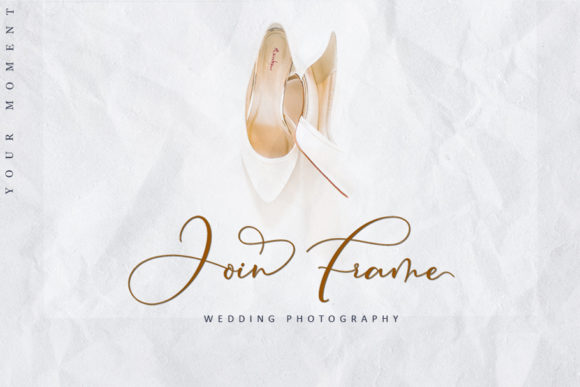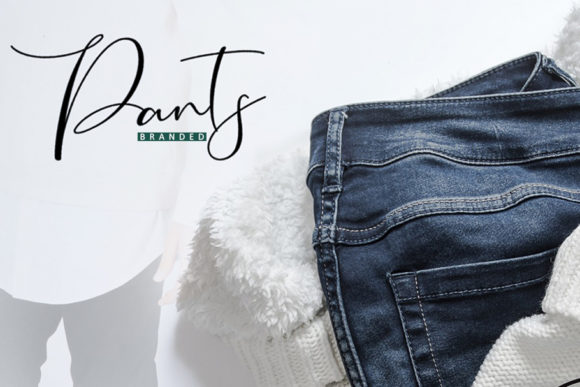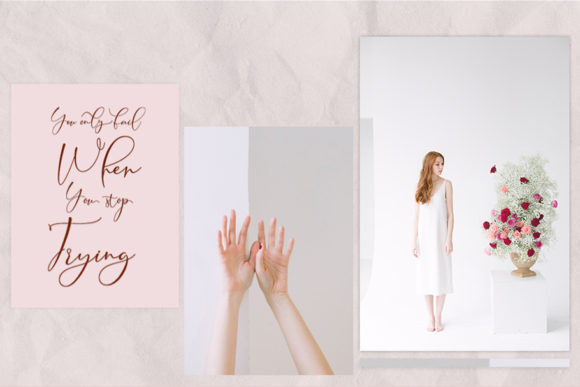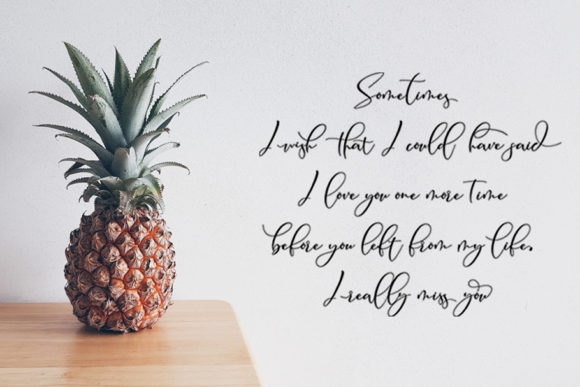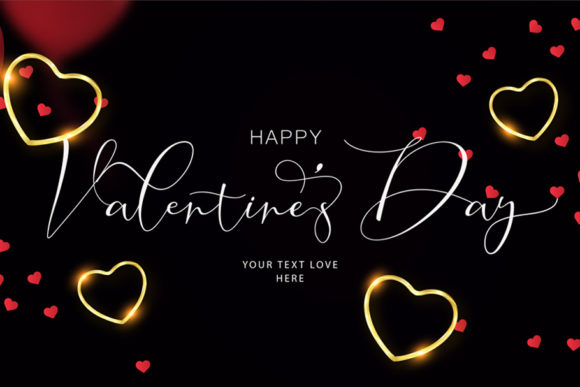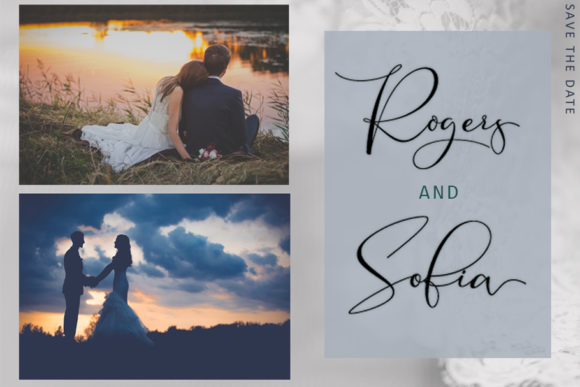
Discover the Perfect Script for Your Next Design Project
As designers, we’ve all been there – staring at a blank canvas, trying to find the perfect font to bring our vision to life. It’s that moment of excitement when everything clicks, and the design starts to take shape. For those who crave a touch of elegance and whimsy, we’re thrilled to introduce you to the stunning Camelia Stark Font.
This gorgeously light and fun script is designed to elevate any design project, making it a valuable addition to any designer’s toolkit. Whether you’re working on a branding project, creating a social media campaign, or designing a wedding invitation, Camelia Stark Font is sure to impress with its modern feel.
With its versatility and charm, it’s no wonder that Camelia Stark Font has become a favorite among designers. Its light and airy texture makes it perfect for adding a touch of sophistication to any design, while its playful nature makes it ideal for more creative projects.
Camelia Stark Font Key Features
- Font Family: Camelia Stark
- Font Style: Script, Calligraphy
- Size: 2,400 glyphs, 14 styles
- Resolution: Supports high-resolution displays (Retina, 4K, etc.)
- Unique Characteristics: Elegant, luxurious, and sophisticated script font with intricate details and flourishes, ideal for invitations, wedding designs, and high-end branding
Camelia Stark Font Review
Overall, I was quite impressed with the Camelia Stark font. It’s a beautiful, elegant script that’s perfect for creating a sense of sophistication and luxury.
- Unique, hand-crafted feel that sets it apart from other fonts.
- Extremely versatile, suitable for a wide range of applications, from wedding invitations to luxury branding.
- Well-suited for display text, with a clear and legible x-height.
- Supports a wide range of languages, making it a great choice for international projects.
- Lack of bold and italic weights may limit its use in certain situations.
- Not suitable for small text sizes, as the letterforms can become difficult to read.
- May require additional formatting to achieve consistent spacing and alignment.
The Camelia Stark font is a stunning addition to any designer’s toolkit. While it may have some limitations, its unique charm and versatility make it a great choice for high-end projects. With careful use and formatting, it can add a touch of elegance and sophistication to any design.
Getting the Most Out of Camelia Stark Font
To get the most out of Camelia Stark Font, use it for:
- Designing elegant and sophisticated logos.
- Creating luxurious and high-end branding materials.
- Adding a touch of sophistication to your typography.
Some common use cases for Camelia Stark Font include:
- High-end product packaging and branding.
- Luxury fashion and lifestyle branding.
Alternatives to Camelia Stark Font
The Camelia Stark Font is a popular script font known for its elegant and sophisticated feel. However, designers may be looking for alternative fonts that offer similar characteristics or unique features. Here are a few options to consider:
Great Vibes is a modern script font that offers a more relaxed and casual feel compared to Camelia Stark. It’s perfect for designers who want to create a friendly and approachable tone in their designs. Great Vibes has a more open and airy feel, making it suitable for headings and titles. It’s also a great option for designers who want a font that’s easy to read at larger sizes.
Comparison to Camelia Stark: Great Vibes is more casual and relaxed, while Camelia Stark is more elegant and sophisticated. Great Vibes is also more versatile and can be used for a wider range of designs.
Carolyna Pro is a high-end script font that offers a luxurious and elegant feel similar to Camelia Stark. It’s perfect for designers who want to create a high-end and sophisticated tone in their designs. Carolyna Pro has a more refined and detailed feel, making it suitable for logos, branding, and packaging designs.
Q: What is the character set and language support for the Camelia Stark Font?
The Camelia Stark Font supports a wide range of languages, including Latin, Greek, and Cyrillic scripts. It includes a comprehensive character set, including punctuation, numerals, and special characters, as well as support for diacritical marks and accents.